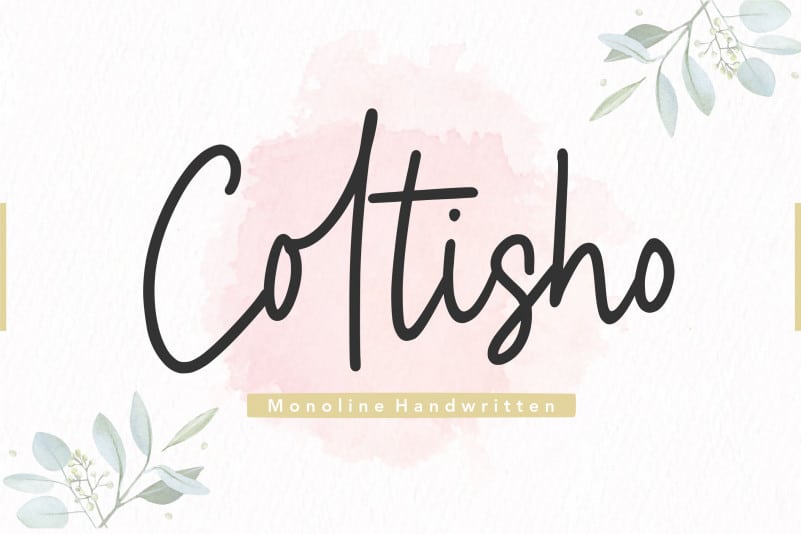
Coltisho Monoline Handwritten Font
Introducing Coltisho Font is a monoline handwritten cursive script font, easily legible script font which would work for a wide variety of purposes. Works great applied to for headlines, titles, heading, logos, posters, invitation,book, branding, booklet, flyer and any creative design.
This font contains all uppercase and lowercase english alphabet, numbers, punctuation, symbol and multilanguage.